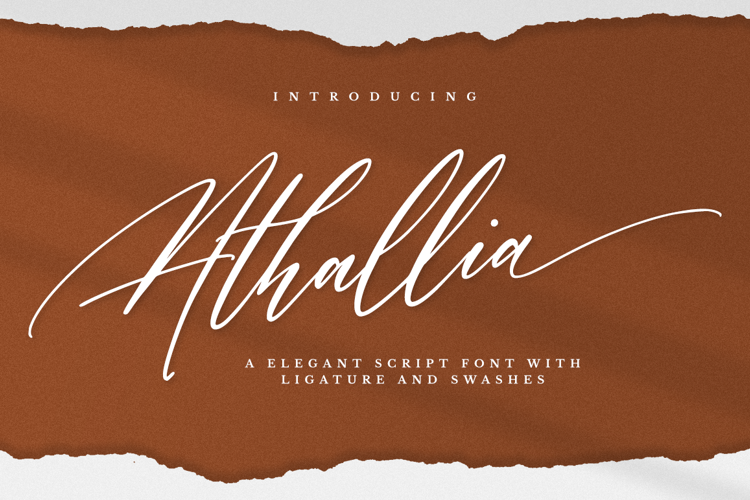
Athallia Font
Athallia is a lovely calligraphy font. It comes with amazing alternates and is a mixture from copperplate calligraphy with hand-lettering styles. It was designed to covey elegance and has an attractive, smooth, clean, feminine, sensual style.